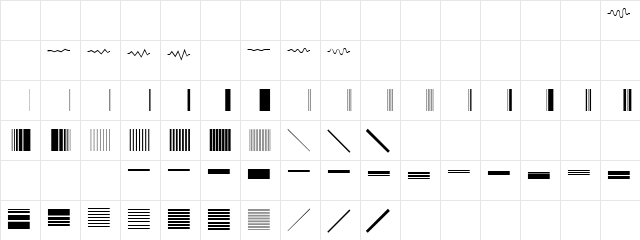
Bunch Regular
Design Context for Bunch Typeface
Bunch is a composed and adaptable typeface that performs quietly and consistently across a wide range of design contexts.